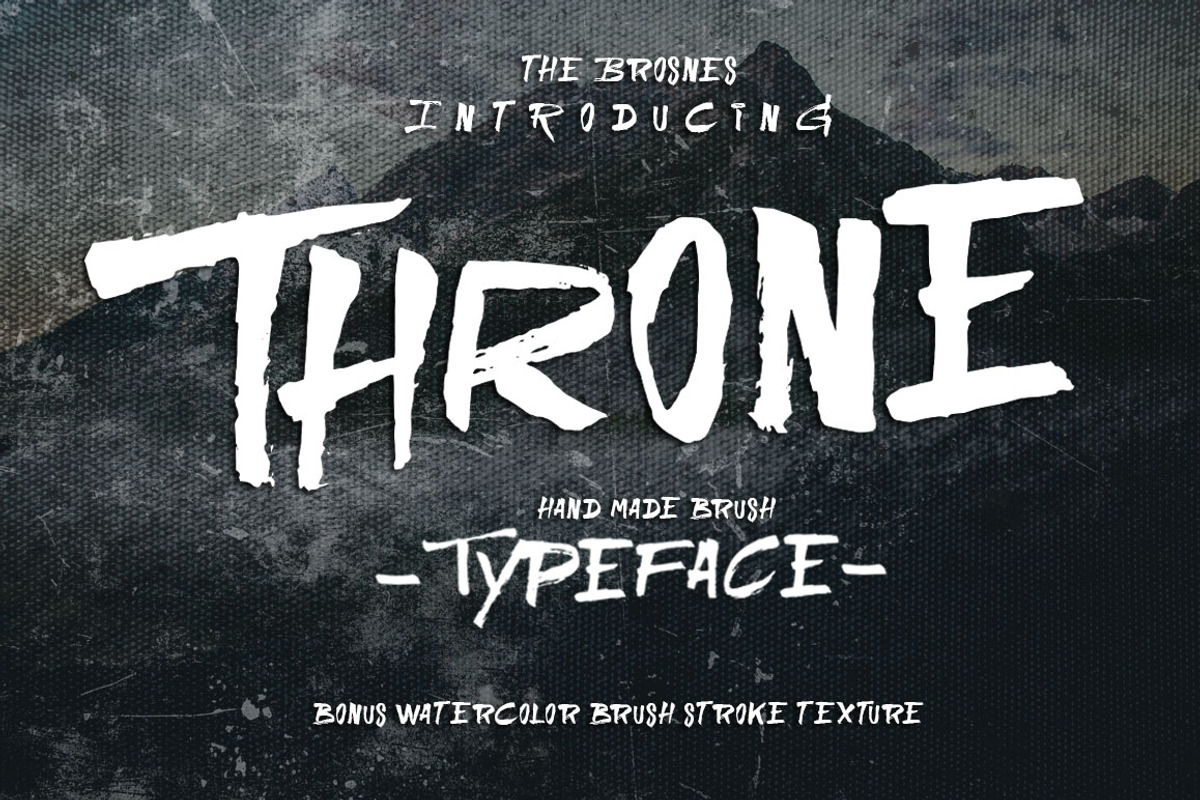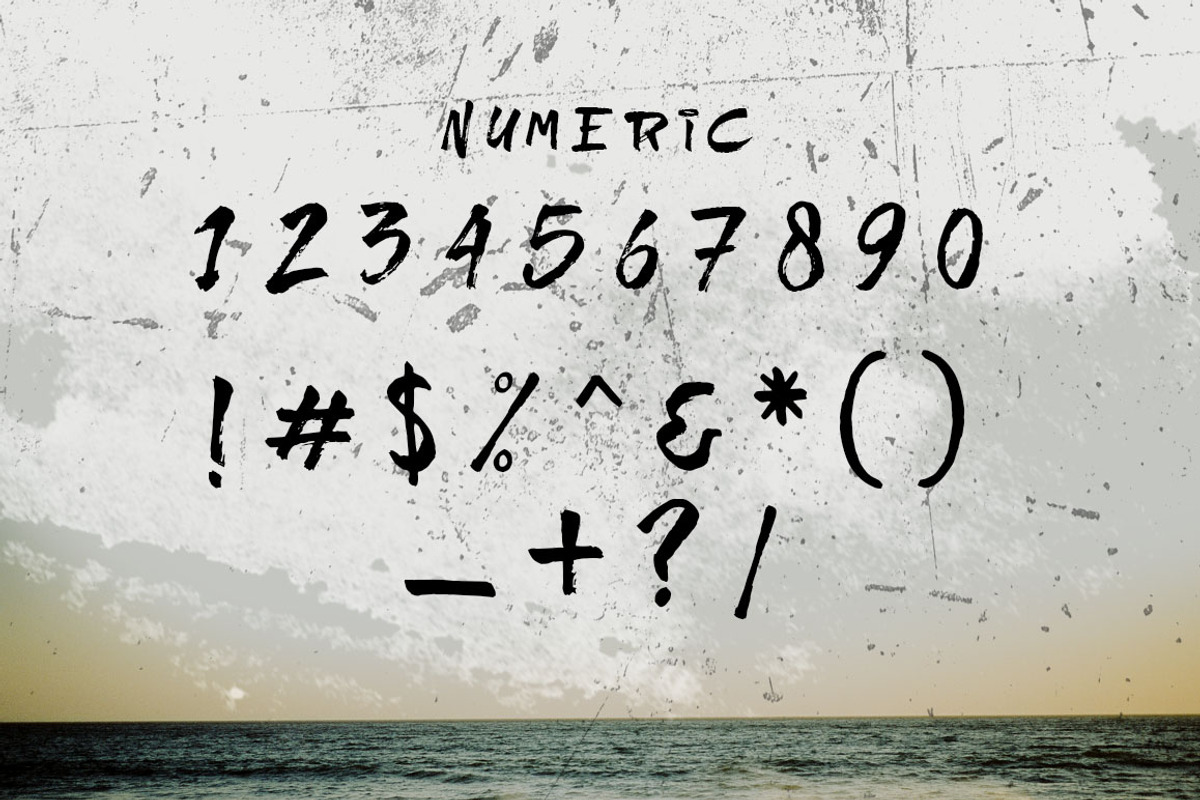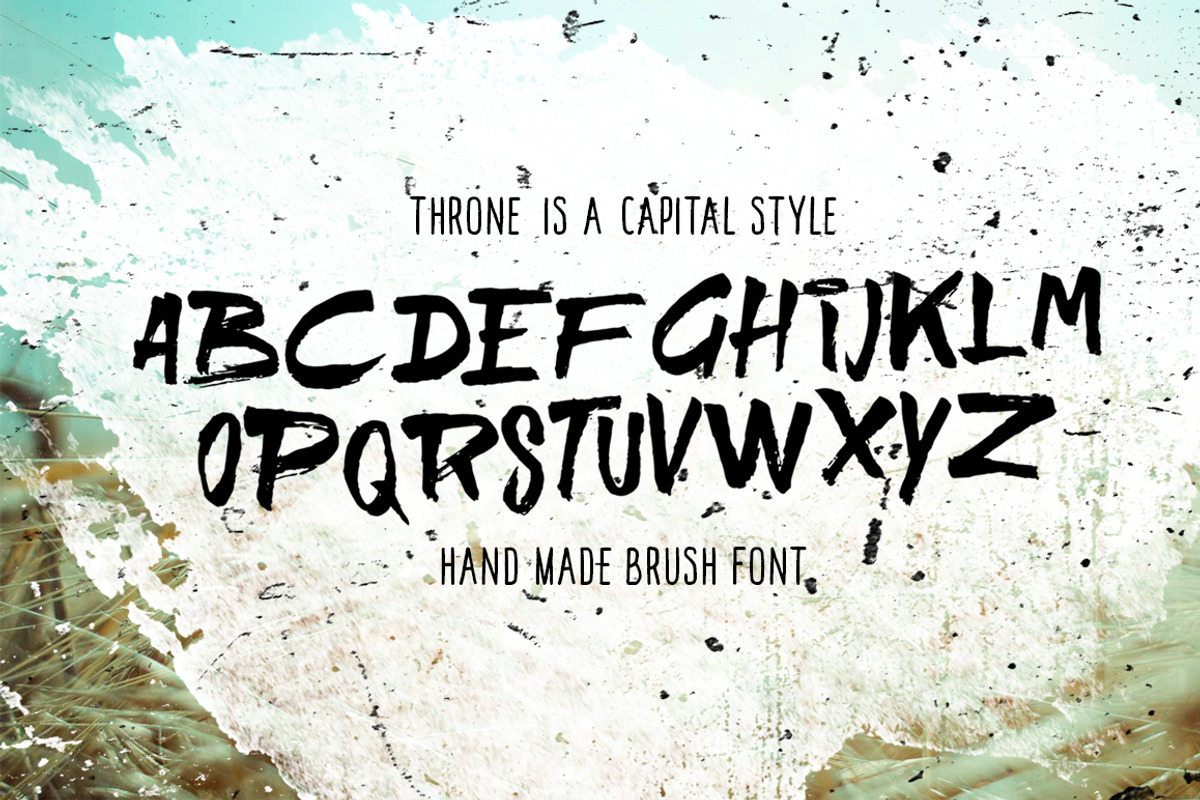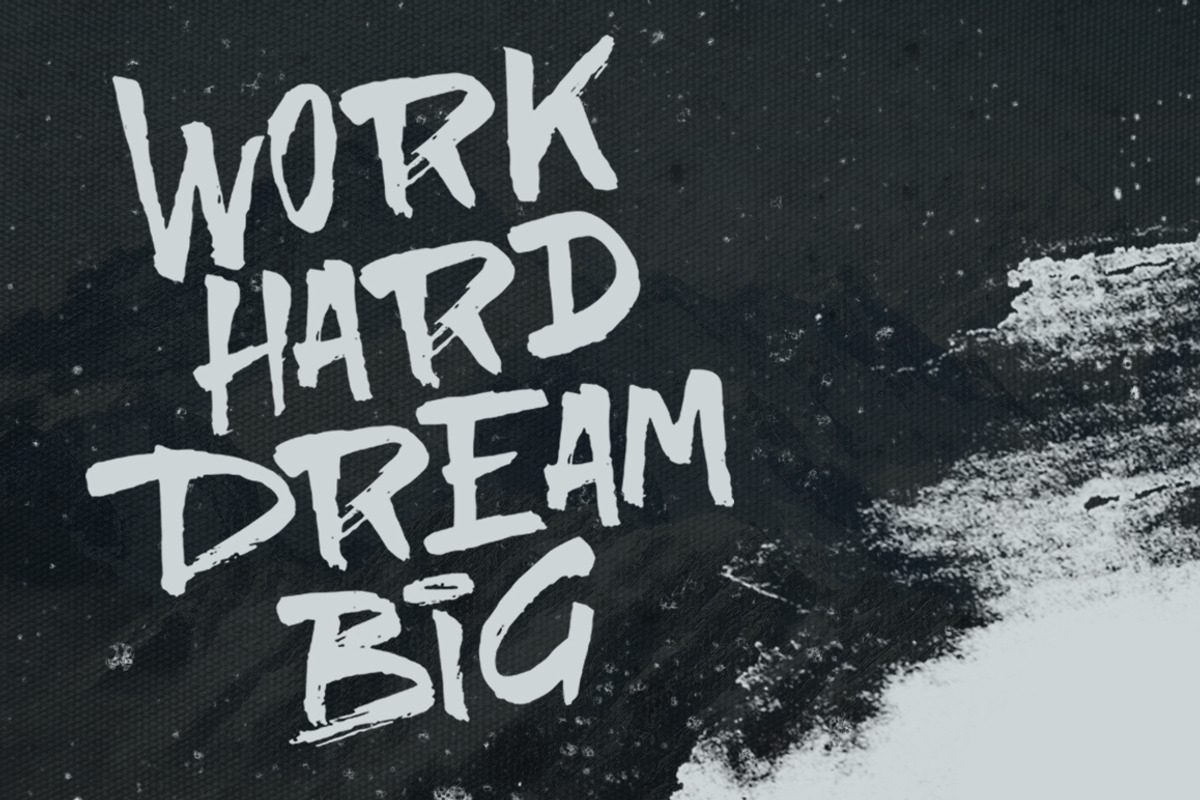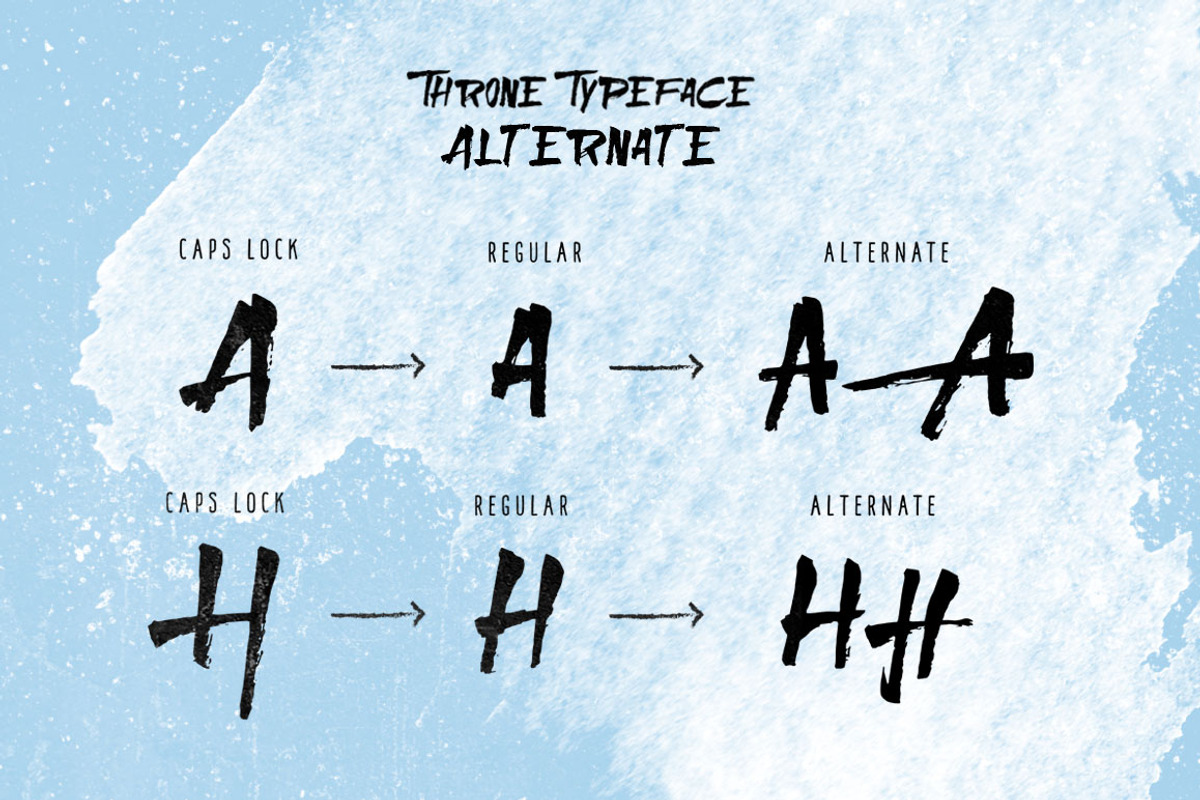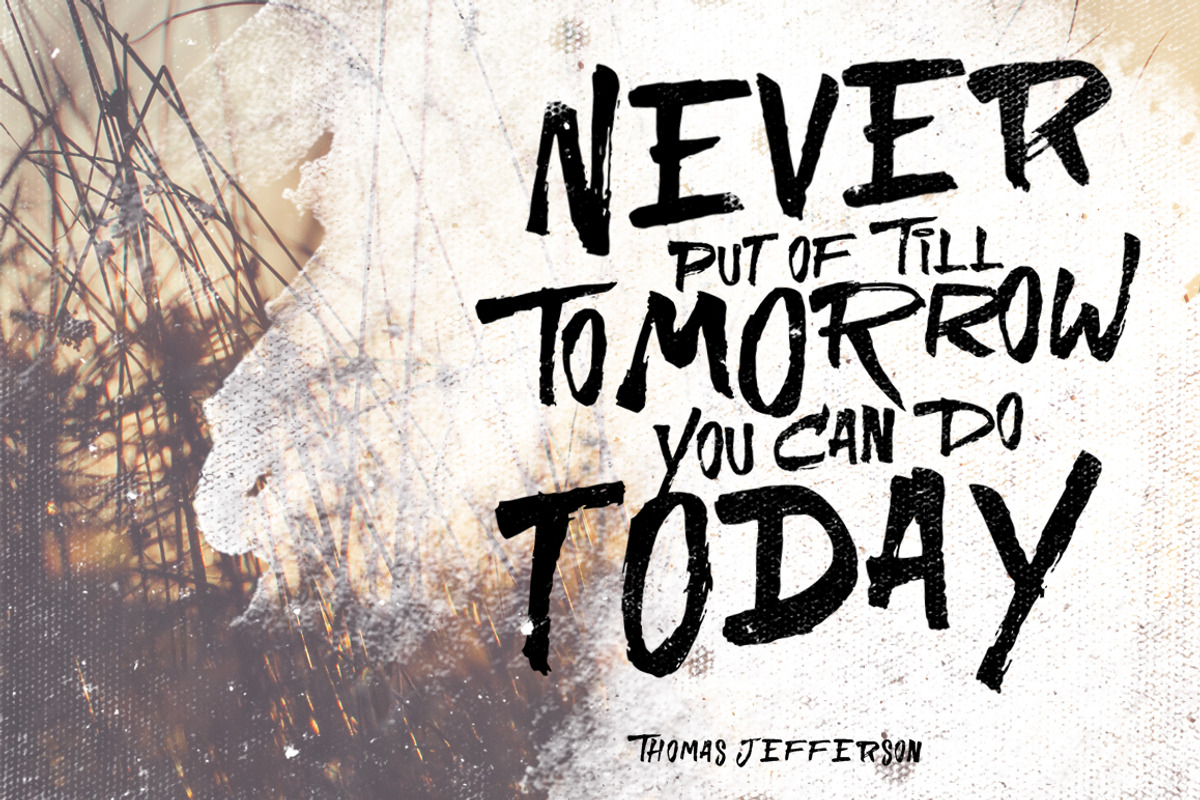
THRONE Typeface
THRONE Typeface by Brosnes is a font selected for branding, posters, packaging, typography.
- Throne Typeface comes with upper characters, punctuation, numerals, and supports international languages.
- Character Set A-Z
THRONE Typeface by Brosnes fits naturally into Branding, posters, packaging, typography.